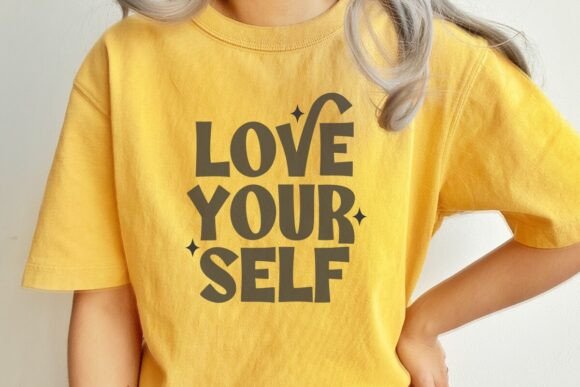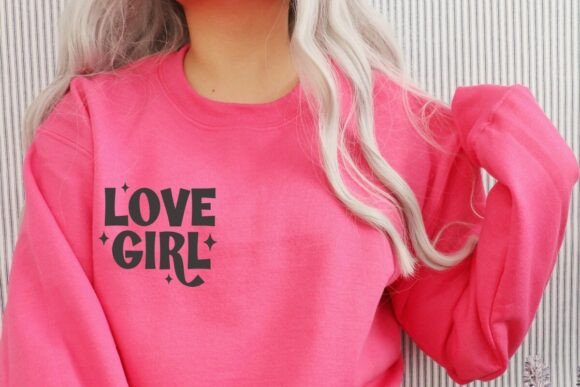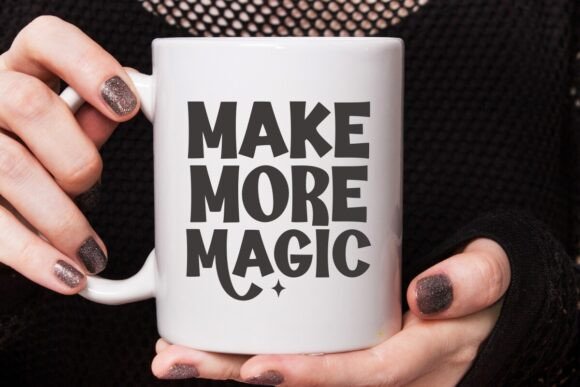
Grinch Wave Font
Immerse yourself in the distinct character of Grinch Wave, a genuine handwritten font, enhanced with a bonus alternate. Crafted with ingenuity, Grinch Wave is a match made in heaven for quotes, infusing artistry into each stroke. Ideal for adding creative flair to your t-shirts, mugs, and tote bags, it effortlessly elevates the charm of any merchandise. With Grinch Wave, experience added sophistication in invitation cards and a multitude of platforms. Lose yourself in the expressive enchantment of this versatile font. Truly, Grinch Wave is more than just a font, it’s a manifestation of personalized elegance.